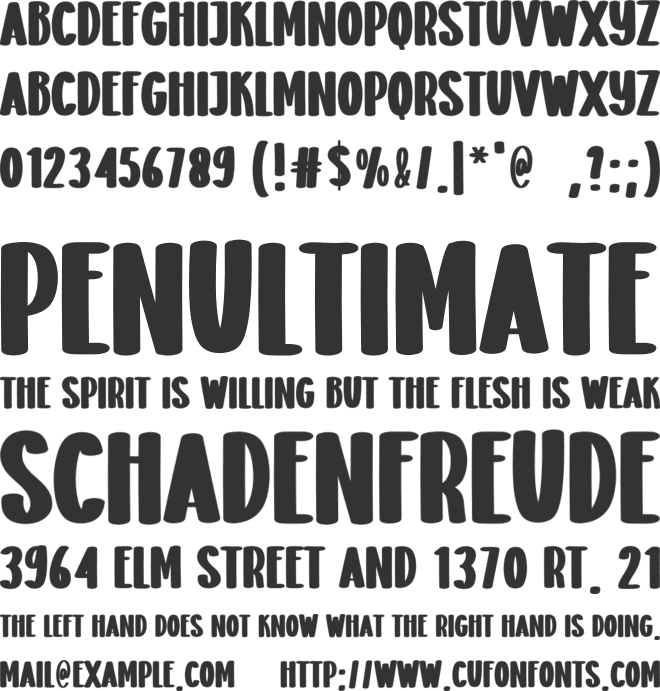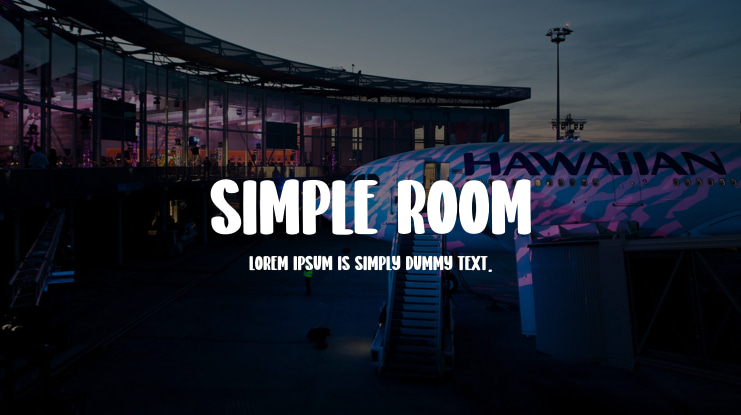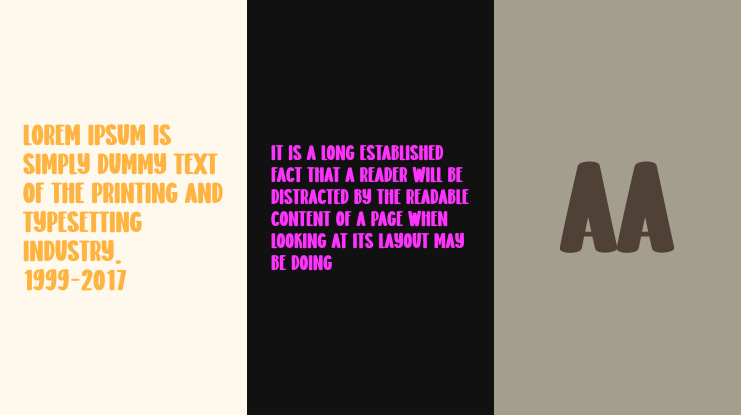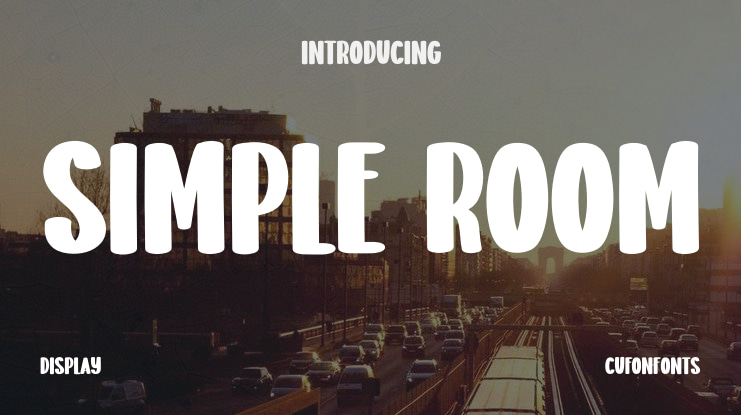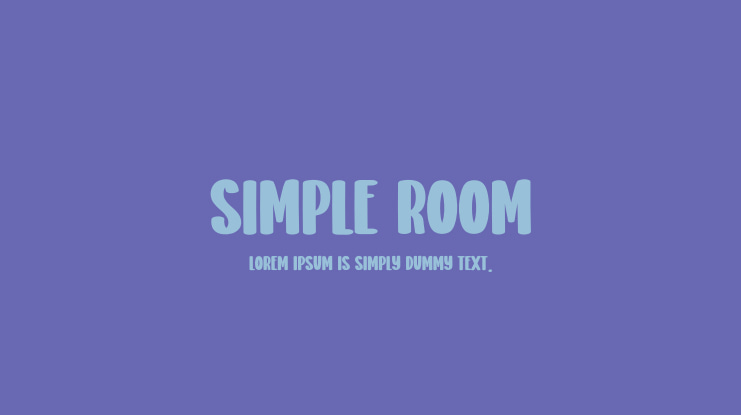
Simple Room Font
Introducing our special collection of creative products designed to give you an extraordinary experience. Our latest letter styles are perfect for various applications such as wall displays, wedding invitations, social media logos, advertisements, product packaging, designs, labels, photography, watermarks, invitations, stationery, and any project that requires elegant handwriting.